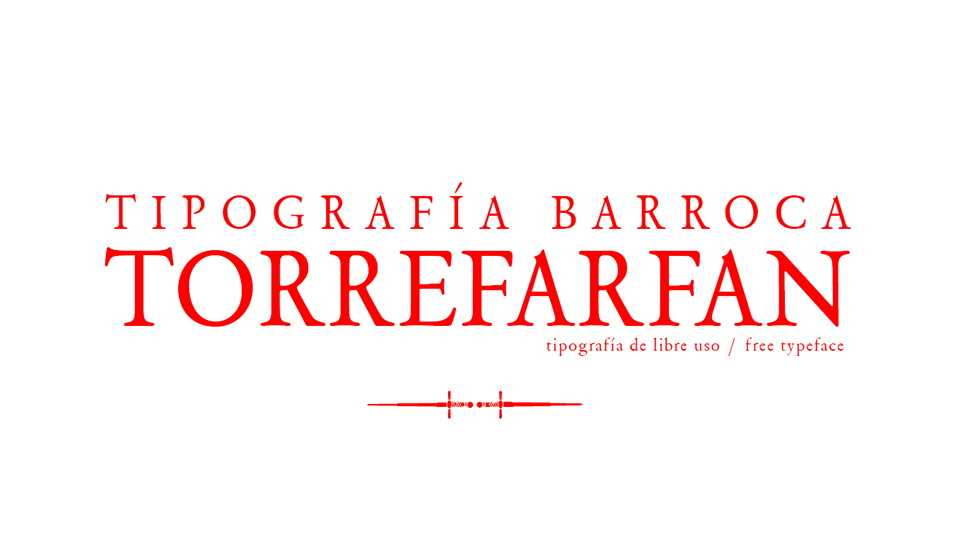
Download TorreFarfan font, an old style serif typeface, a digital typographic remastering, which has its origin in the 17th century baroque typography.
Designer: Estefanía González Sánchez